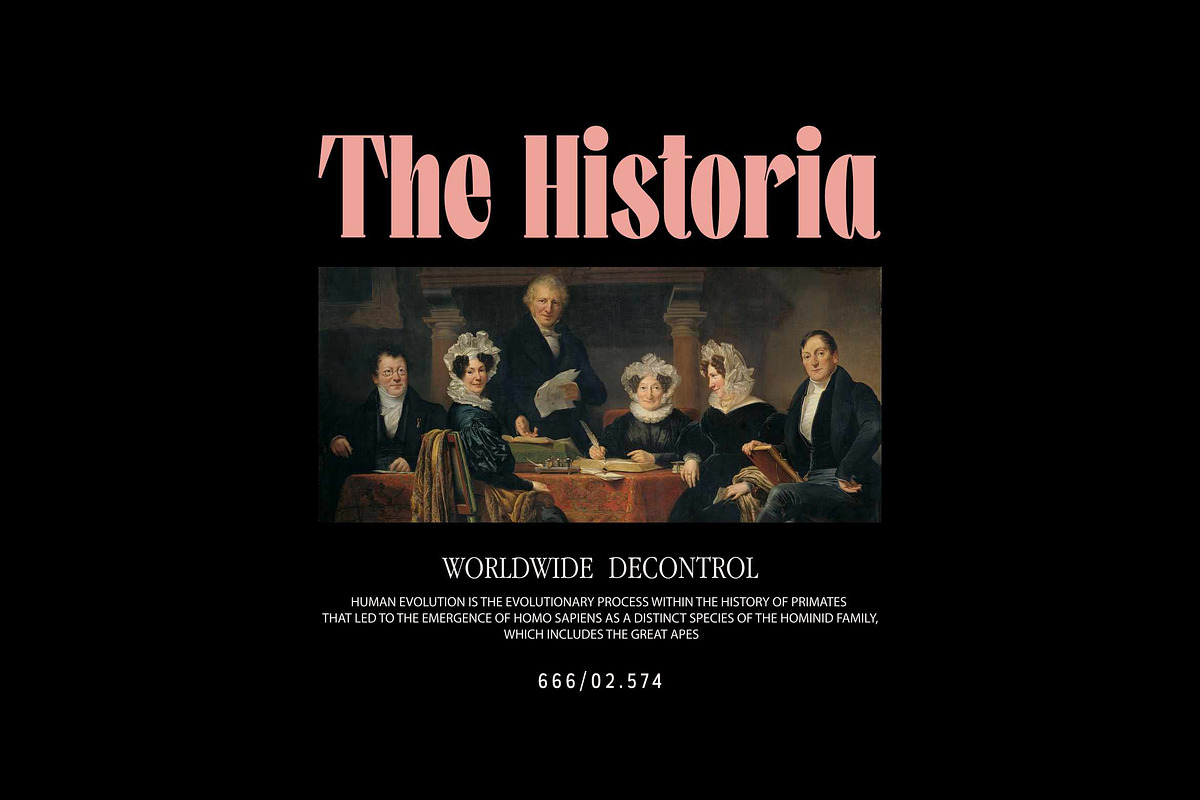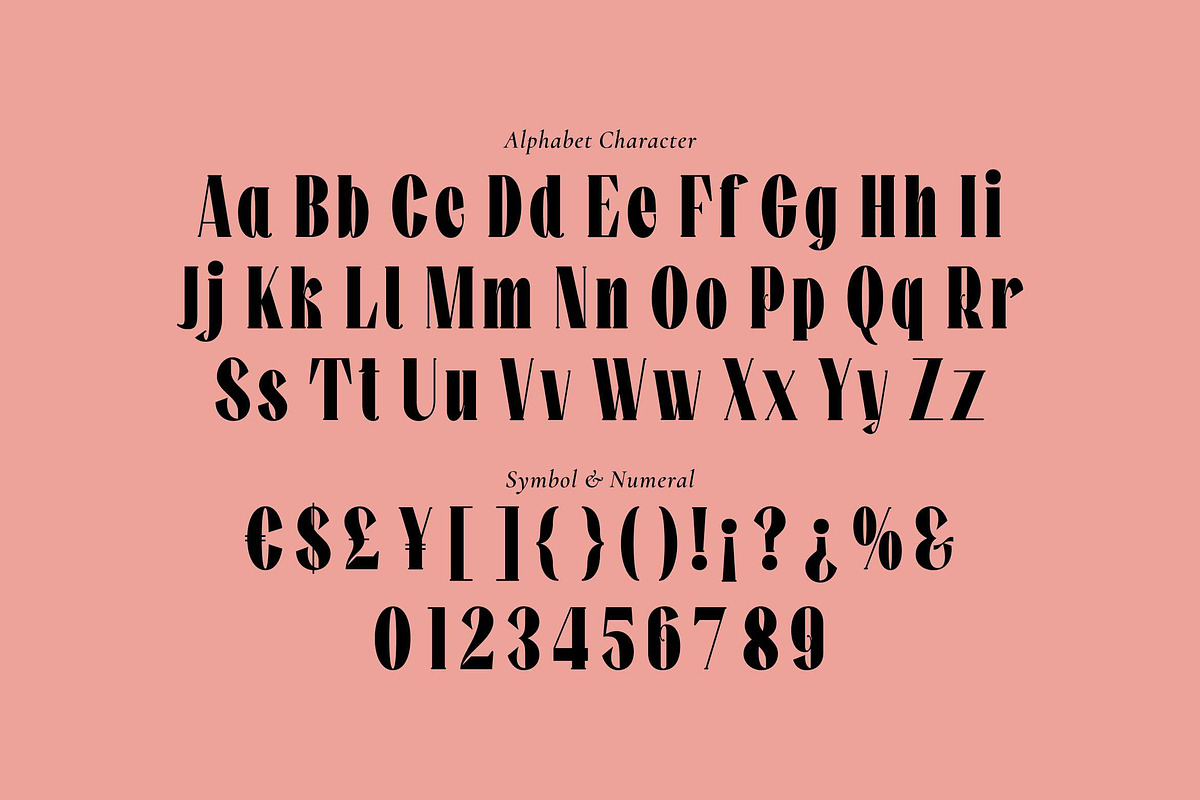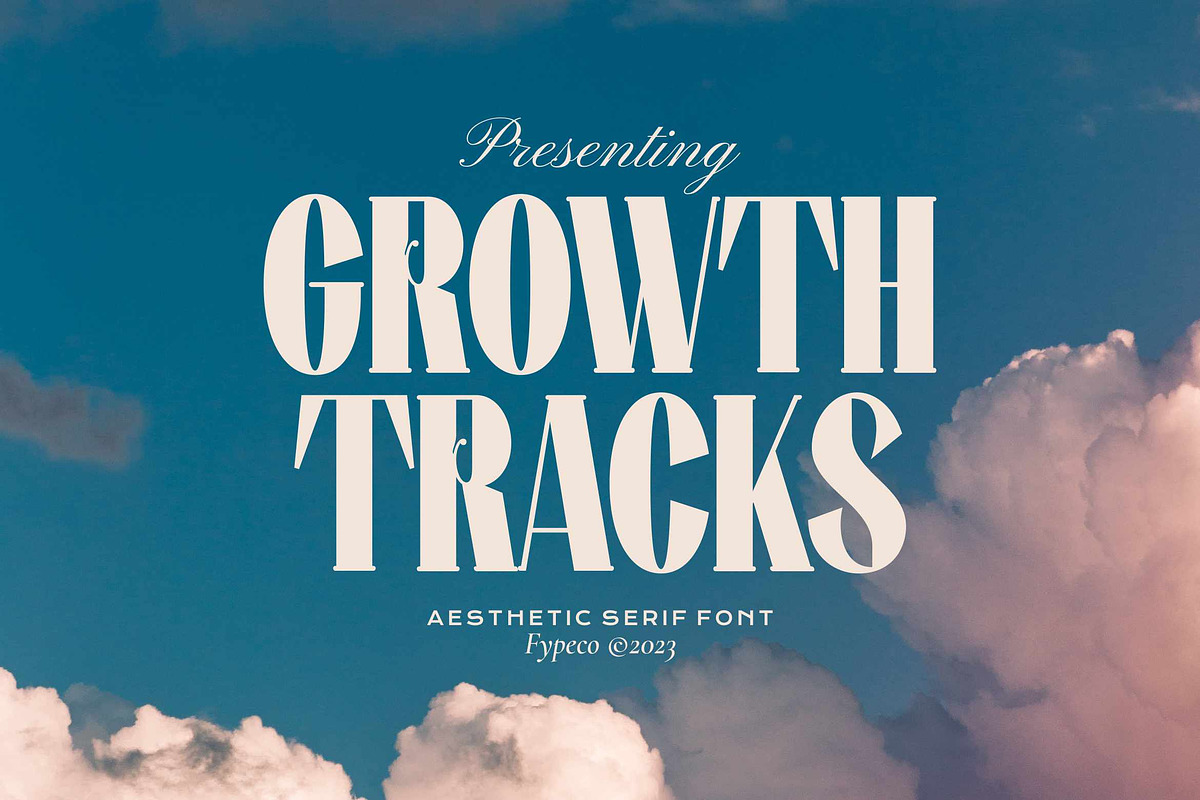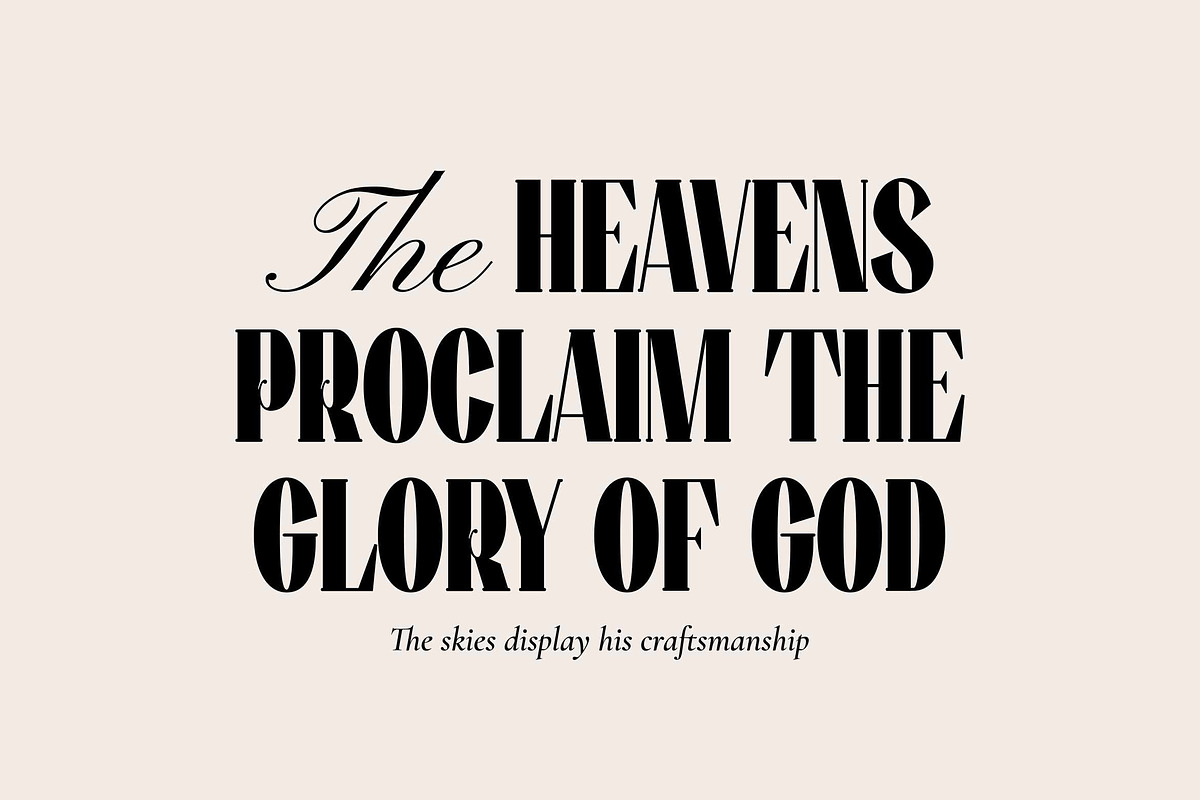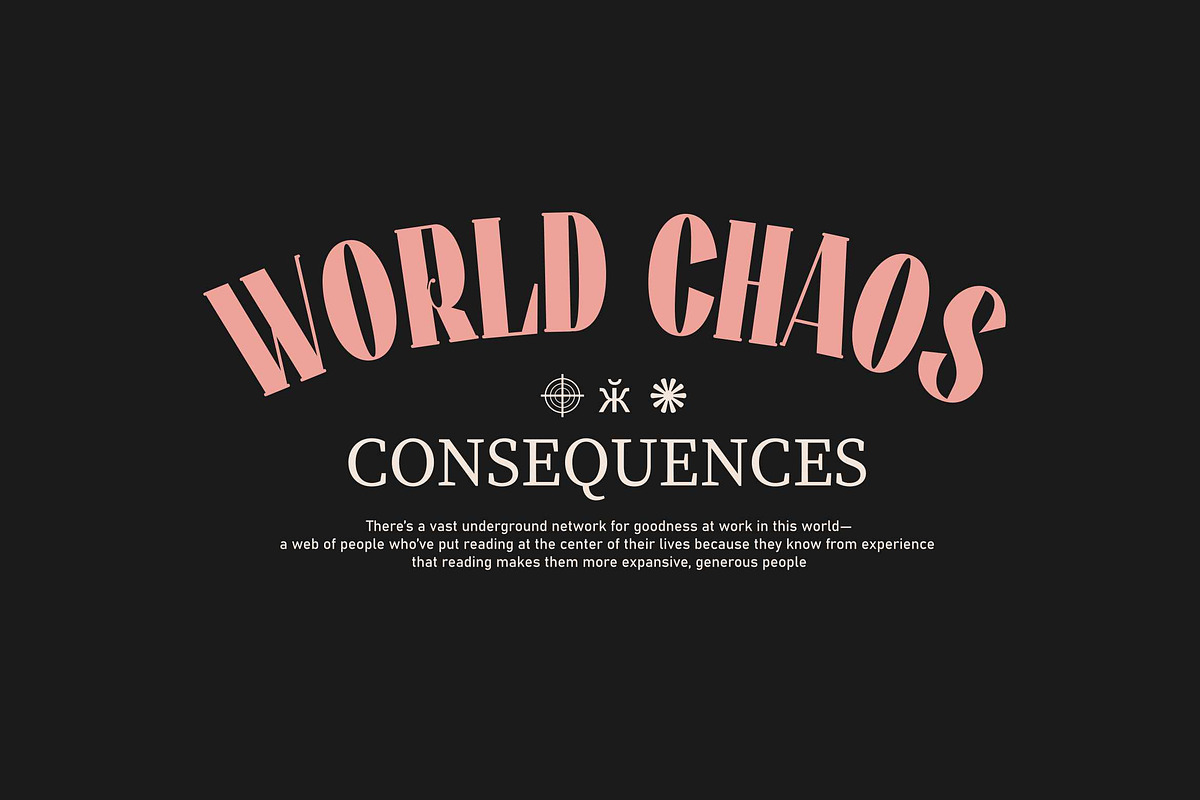
Growth Tracks - Aesthetic Serif Font
Growth Tracks is aesthetic serif font. It's a strong font that will grab the attention. It is suitable for headlines, typography, quotes, magazines, websites, titles, posters, branding, and logos.